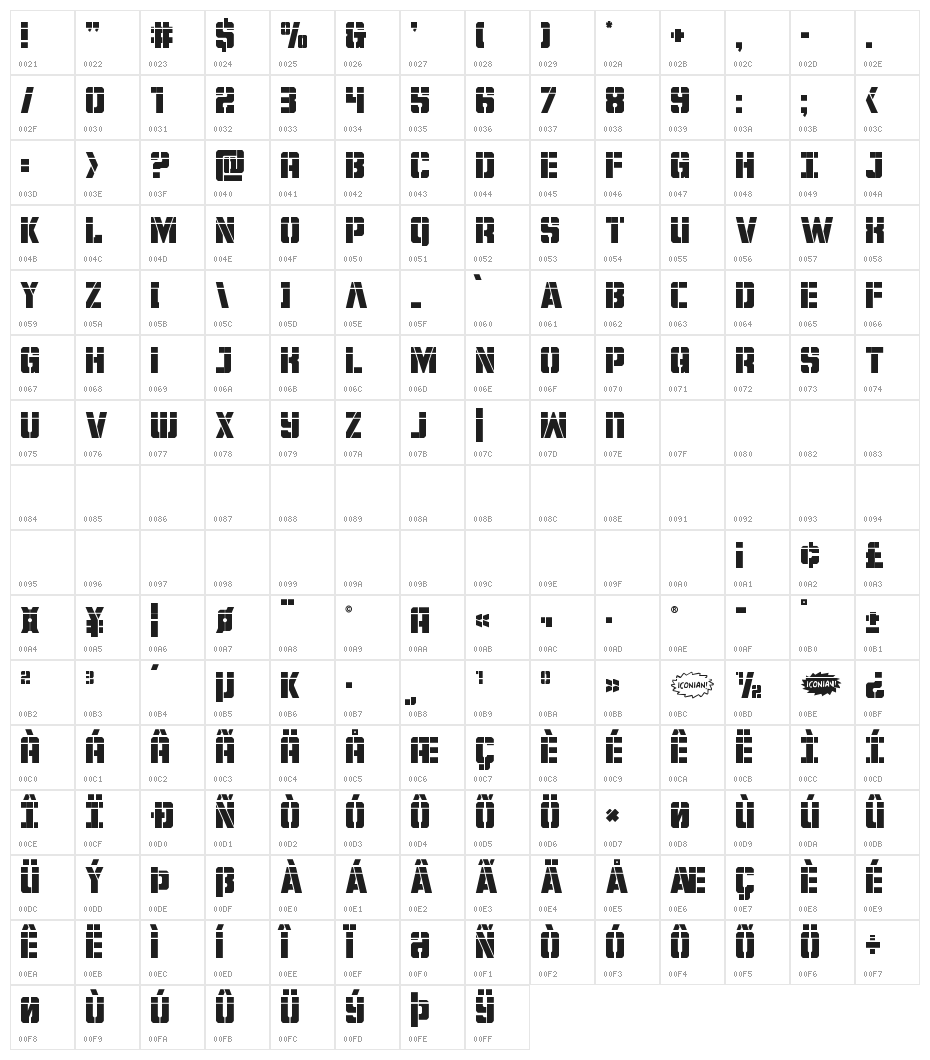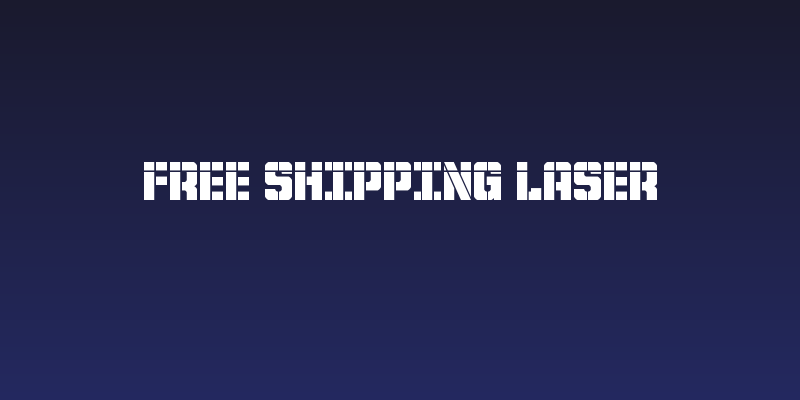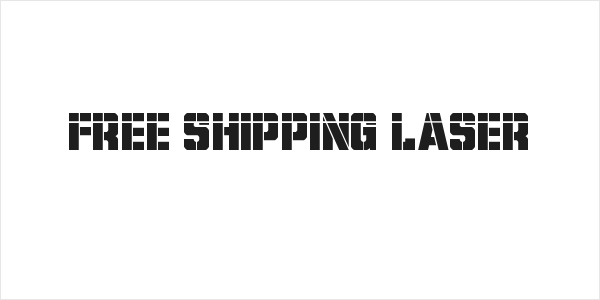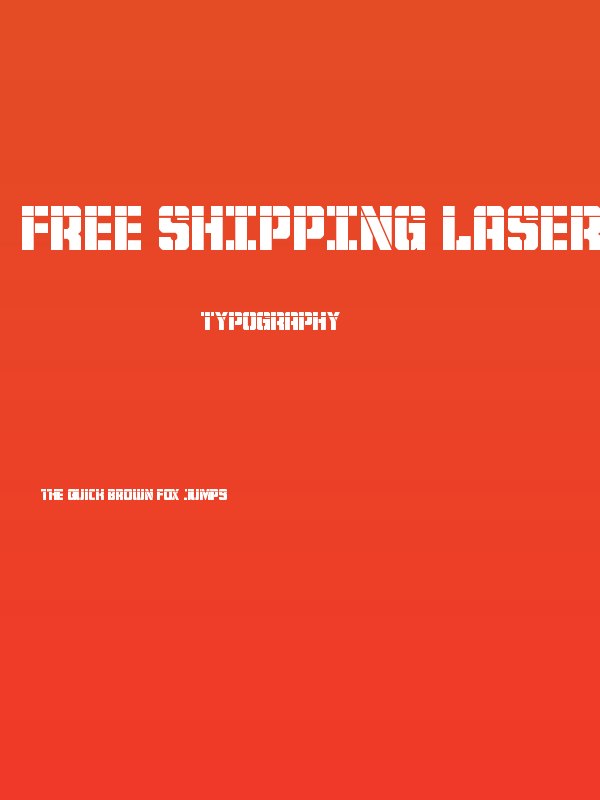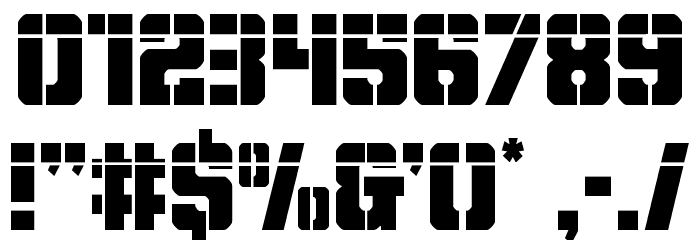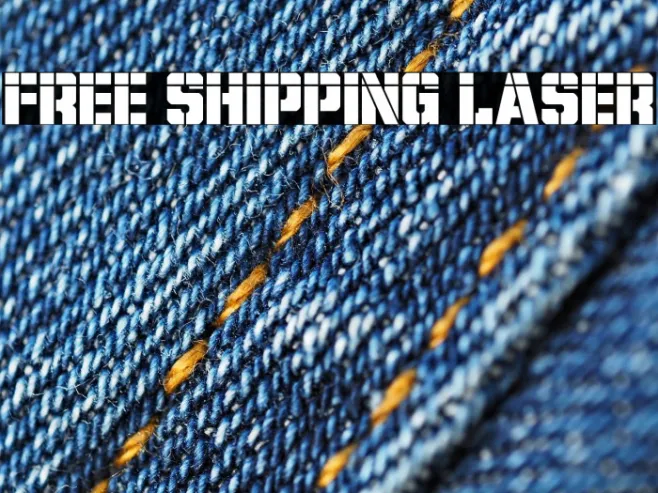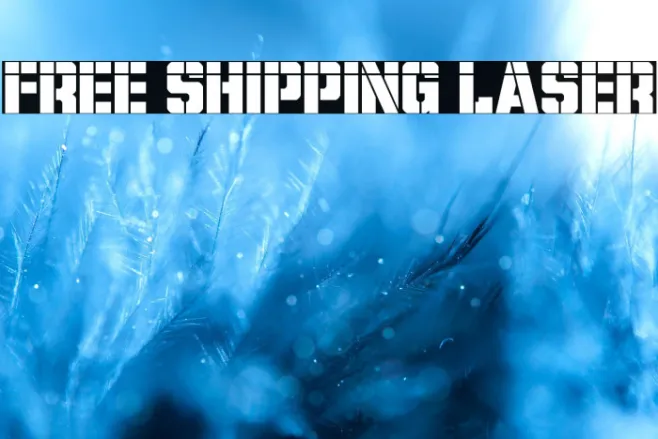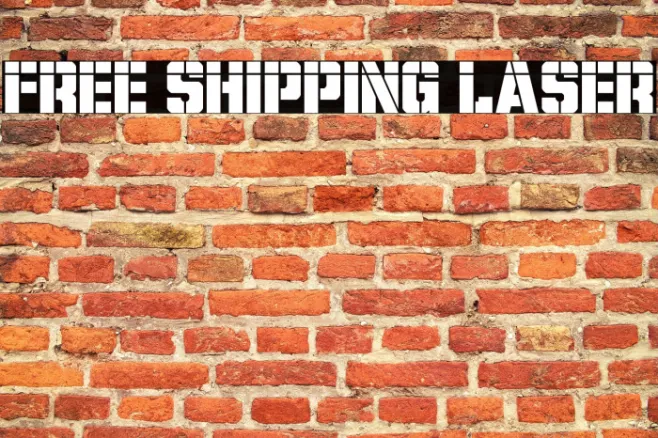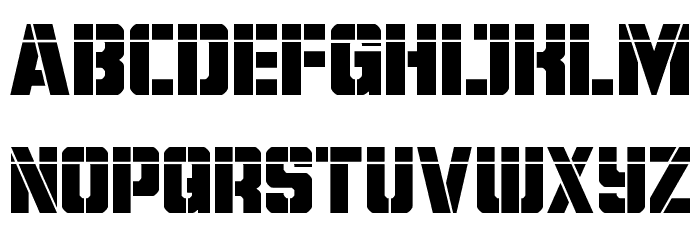
Free Shipping Laser Font
Free Shipping Laser Description
This font features a bold, geometric design with a distinct stencil-like appearance. The characters are constructed with solid, blocky shapes and cut-out sections that create a striking visual effect. The uppercase and lowercase letters maintain a consistent style, emphasizing uniformity and strength. The numerals and special characters follow the same design principles, ensuring a cohesive look across all glyphs. This font's unique style is reminiscent of industrial or military aesthetics, making it ideal for projects that require a strong, impactful presence.
| Overall Style | Industrial, Modern |
| Proposed Projects | Ideal for branding, posters, signage, and any project needing a bold, industrial look. |